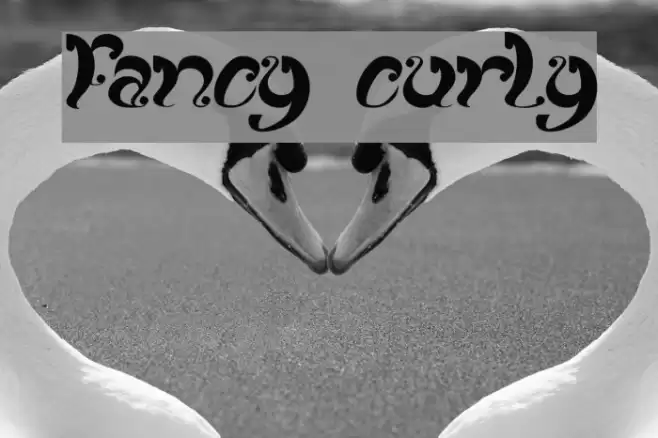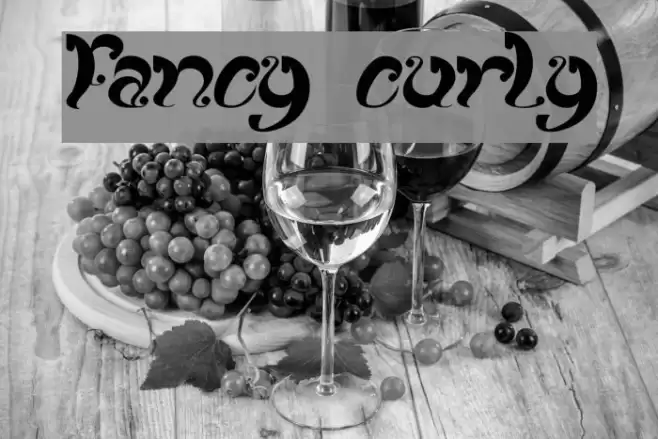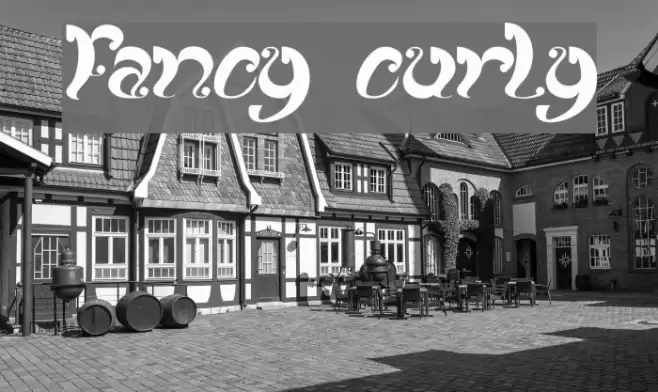
fancy curly Font
fancy curly Description
This font features an ornate and whimsical design, characterized by its curly and elaborate letterforms. Each character is adorned with intricate swirls and loops, giving it a playful and artistic appearance. The strokes are bold and consistent, creating a strong visual impact while maintaining a sense of elegance. The font's unique style makes it stand out, with each letter exhibiting a distinct personality. The overall design is cohesive, with a harmonious balance between the decorative elements and the readability of the text.
An ornate, curly font with bold strokes and intricate swirls from Uncategorized fonts.